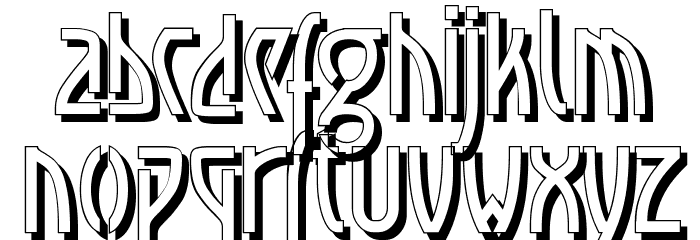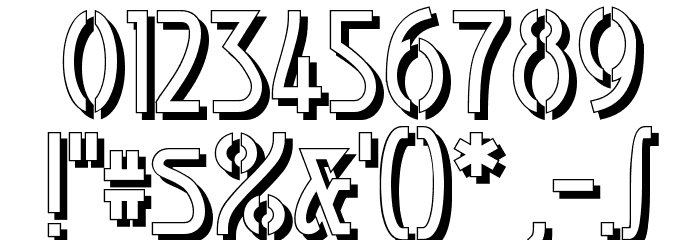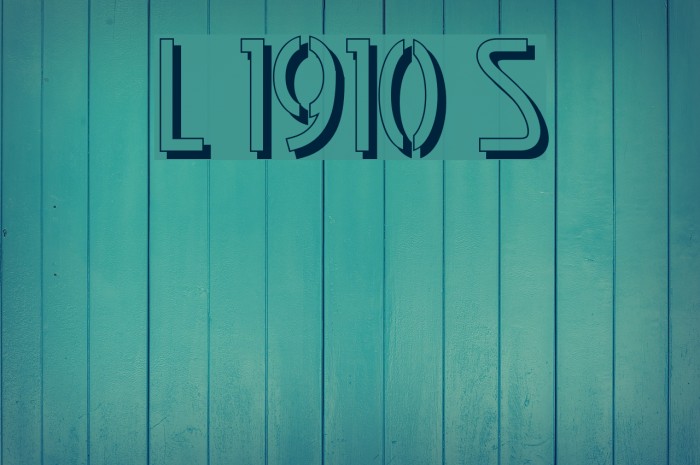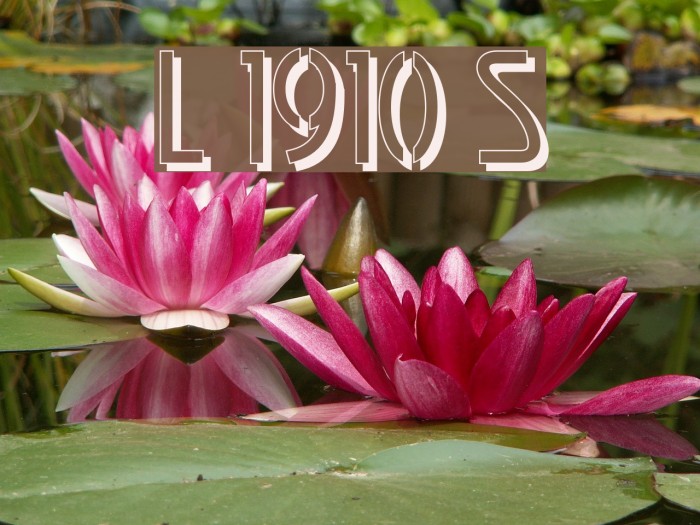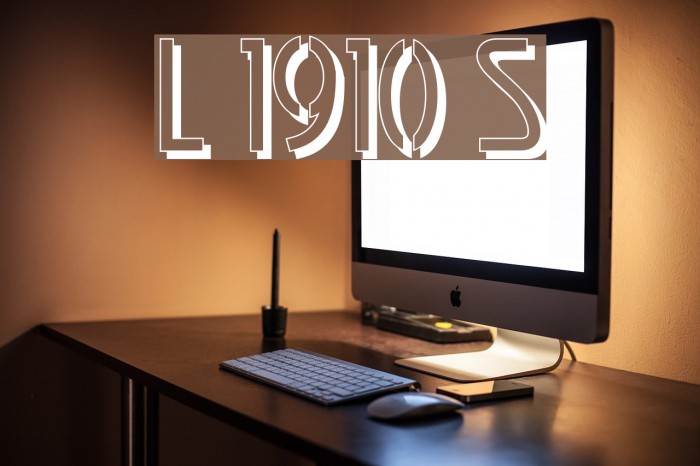
Loxembourg 1910 Shadow Font
This font features a bold, shadowed style that gives each character a three-dimensional appearance. The letters are uppercase and lowercase, with numbers and special characters included. The design incorporates a unique blend of geometric shapes and curves, creating a dynamic and eye-catching effect. The shadow effect adds depth, making it suitable for standout text. The font's structure is consistent, with a modern twist on classic letterforms. Its boldness and shadowing make it ideal for creating a strong visual impact.
A bold, shadowed font with geometric and curved elements for a 3D effect.
- Proposed Projects: Ideal for posters, logos, headlines, and any design needing a striking visual impact.